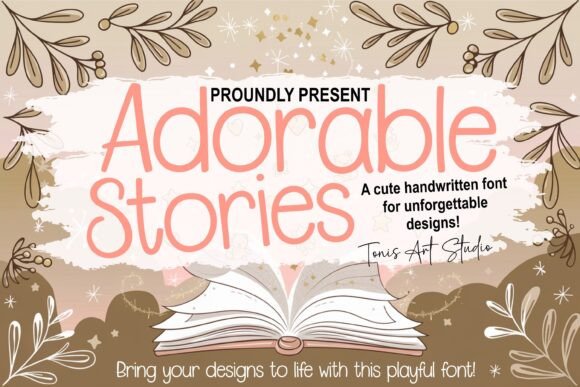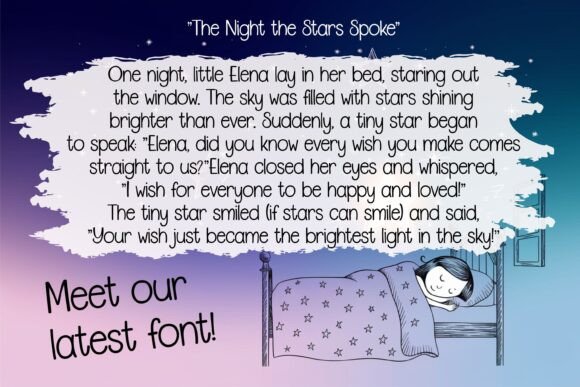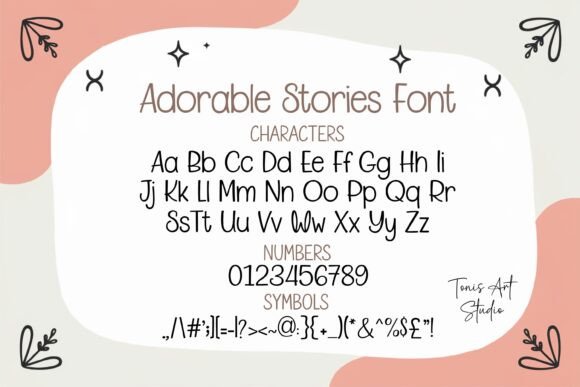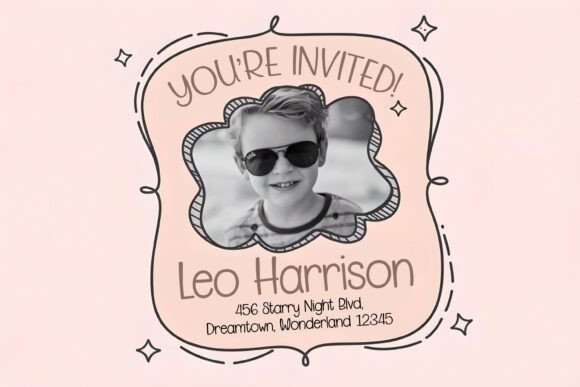
Adorable Stories Font: A Cute Handwritten Font for Kids!
About the Adorable Stories Font
Let us introduce you to Adorable Stories Font, where timeless design meets modern craftsmanship. Adorable Stories Font is a fun and playful handwritten font. Its whimsical style makes it perfect for magical, child-inspired designs like cards, posters, and storybooks.
Its friendly, rounded forms are ideal for projects aimed at children or young adults, working particularly well in headlines, short text blocks on packaging, and playful branding elements. Avoid using it for large bodies of text or UI elements; the whimsical nature can become visually overwhelming and difficult to read in extended passages.
Pairing Adorable Stories with a clean sans-serif like Open Sans for body text creates a strong visual contrast, balancing the handwritten informality with crisp readability. For a more sophisticated look, consider pairing it with a delicate serif font such as Lora. This juxtaposition adds a touch of elegance while maintaining the overall playful feel.
The font’s core personality is undeniably cheerful and approachable, making it a great choice for brands focusing on children’s products, educational materials, or anything requiring a lighthearted and optimistic aesthetic.
Adorable Stories Font Usage Examples
Adorable Stories Font Example